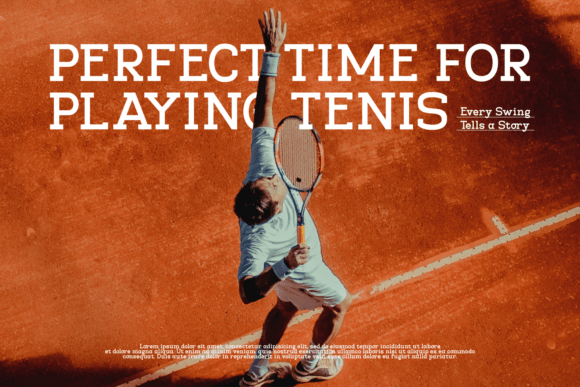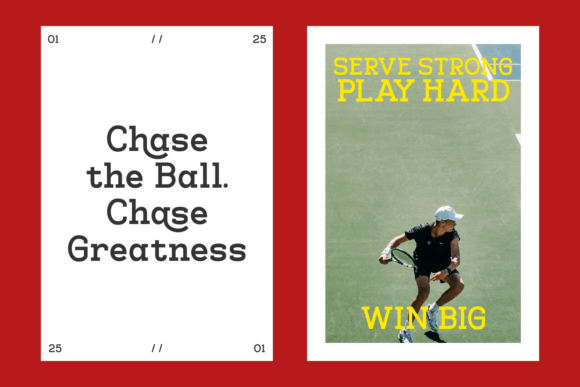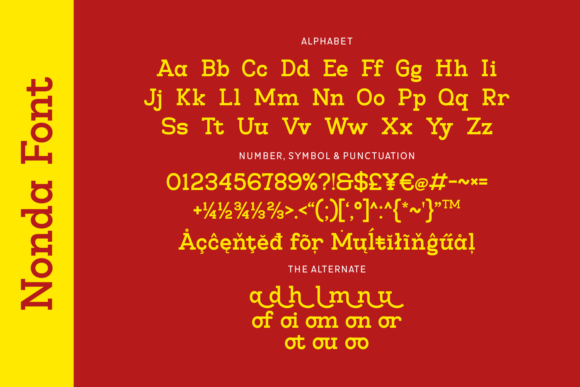
Introduction to Nonda Font
As you sit at your desk, staring at a blank canvas, waiting for that perfect spark to ignite your next creative project, you start to feel the pressure. The clock is ticking, and your client is counting on you. But then, you stumble upon that one font that makes everything click into place. For many designers, that font is the Nonda Font.
This sleek slab serif display font, born in 2025, has been making waves in the design community with its modern, geometric forms and unique ligature that stylistically connects the first two letters. The result is a high-quality font that adds a touch of sophistication to any design project. And the best part? It’s available for free download, complete with a transparent background, making it a valuable resource for designers looking to elevate their work.
Nonda Font
- Features a unique and modern design aesthetic, setting it apart from other free fonts and making it an excellent choice for creative projects.
- Perfect for use in logos, branding materials, and other visual identity elements, thanks to its versatility and high-quality design.
Honest Review: Nonda Font
I recently stumbled upon the Nonda Font, a free design resource that’s perfect for creatives working on a tight budget. As a designer, I appreciate high-quality fonts that can elevate my projects to the next level.
What works well: ✨ The Nonda Font is incredibly versatile, with a range of styles and weights that can be easily customized for various creative projects. Its transparent background makes it a great choice for graphic designers, and the font’s high quality ensures that it looks crisp and clear on both digital and print materials.
- Wide range of styles and weights
- High-quality design that looks great on various mediums
Overall, I’m impressed with the Nonda Font, and I think it’s a great resource for designers working on creative projects. While it may have some limitations, its high quality and versatility make it a valuable addition to any design library.
Nonda Font
The Nonda Font is a versatile and high-quality design resource perfect for any creative project. With its transparent background, it can be easily integrated into various design software.
Tips for Getting the Most Out of Nonda Font
For the best results, use Nonda Font on a high-resolution design. Experiment with different font sizes and colors to create a unique look. You can also combine Nonda Font with other design elements to create a visually appealing design.
Common Use Cases for Nonda Font
Nonda Font is ideal for creating logos, business cards, and other marketing materials. Its transparent background makes it easy to use on a variety of backgrounds and designs.